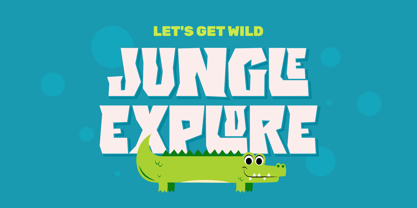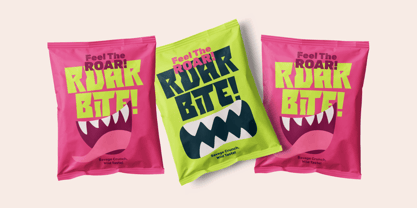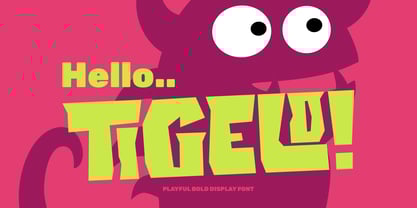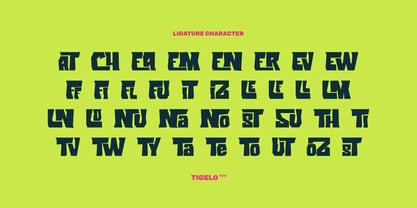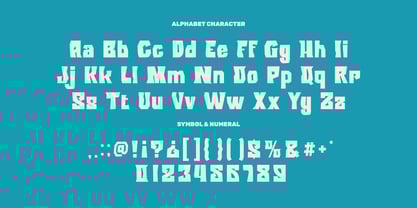
Tigelo
by Imoodev
Tigelo is a bold and playful kids font, designed to capture attention. It exhibits a cartoonish style, which conveys a sense of fun and creativity. Tigelo is well-suited for informal design, children's content, educational design like school poster, book cover, zoo, kids fashion, animal world children books market, themes related to adventure, travel, or outdoor activities, making it an excellent choice for engaging, eye-catching messages in graphic design related to these themes.
Features:
• Uppercase and Lowercase
• Punctuation, Alternates and, Ligatures
• Number and Symbol
• Multilingual Support
• Opentype Features